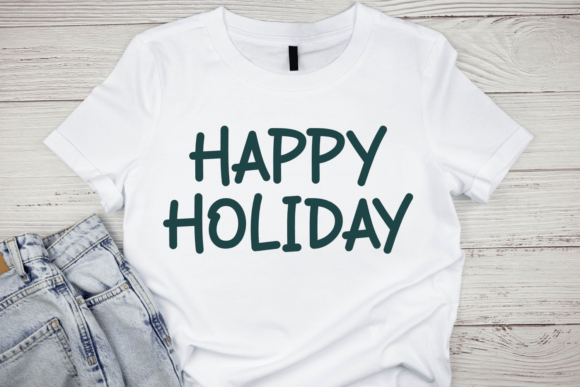
Great Dreams Font: A Playful Handwritten Typeface for Creative Projects
Are you looking for a font that can add a touch of playfulness and creativity to your designs? Look no further than Great Dreams, a versatile and charming handwritten typeface that’s perfect for a wide range of projects. In this article, we’ll take a closer look at the Great Dreams font, its features, and how you can use it to elevate your designs.
What is Great Dreams Font?
Great Dreams is a playful handwritten typeface that’s designed to bring a sense of fun and creativity to your designs. Its unique and charming letterforms make it perfect for projects that require a personal touch. Whether you’re designing a greeting card, children’s book, or social media graphic, Great Dreams is a great choice.
One of the standout features of Great Dreams is its versatility. This font works well in a variety of contexts, from formal to informal, and can be used for both digital and print projects. Its playful style makes it suitable for party decorations, fun branding, and social media graphics, while its elegant feel makes it perfect for more formal projects like invitations and logos.
10 Creative Ways to Use Great Dreams Font
- Greeting Cards: Add a personal touch to your greeting cards with Great Dreams. Its playful style makes it perfect for birthday cards, holiday cards, and other celebrations.
- Children’s Books: Great Dreams is a great choice for children’s books, with its fun and engaging letterforms that kids will love.
- Invitations: Make your invitations stand out with Great Dreams. Its elegant feel makes it perfect for formal events, while its playful style is great for casual gatherings.
- Logos: Use Great Dreams to create a unique and memorable logo for your business or brand.
- Posters: Great Dreams is a great choice for posters, with its bold and eye-catching letterforms that are sure to grab attention.
- Party Decorations: Add a touch of fun and playfulness to your party decorations with Great Dreams. Use it to create banners, signs, and other decorations that will make your party stand out.
- Fun Branding: Great Dreams is perfect for fun and playful branding, such as for a kids’ party or a children’s product.
- Social Media Graphics: Use Great Dreams to create engaging and eye-catching social media graphics that will help your posts stand out.
- Wedding Stationery: Great Dreams can also be used for wedding stationery, such as wedding invitations, save the dates, and thank you cards.
- Packaging: Use Great Dreams to add a personal touch to your product packaging and make it stand out on store shelves.
Typography Tips for Using Great Dreams Font
When using Great Dreams, there are a few typography tips to keep in mind to get the most out of this font:
- Use it with a simple background: Great Dreams works best with a simple background that won’t compete with the font’s playful letterforms.
- Experiment with colors: Great Dreams looks great in a variety of colors, so don’t be afraid to experiment and find the perfect color for your design.
- Mix and match: Try mixing and matching Great Dreams with other fonts to create a unique and interesting typography combination.
- Pay attention to spacing: Make sure to leave enough space between letters and lines to ensure that Great Dreams is easy to read.
Great Dreams is a playful and versatile handwritten typeface that’s perfect for a wide range of creative projects. Its unique and charming letterforms make it a great choice for designers who want to add a personal touch to their designs. With its many uses and easy download and installation process, Great Dreams is a font that’s sure to become a favorite in your design arsenal.